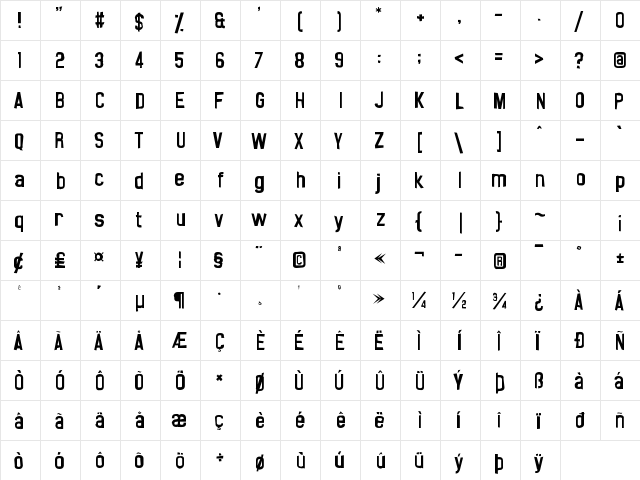
Noasarck Sporadico Regular
Design Context for Noasarck Sporadico Typeface
Noasarck Sporadico takes a measured approach to typography — its balanced proportions and neutral character make it a reliable workhorse for both digital and print work.